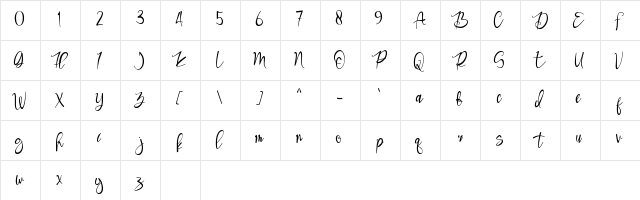
Goodday Regular
| Designer | AndreyFD |
Design Context for Goodday Typeface
Goodday is a composed and adaptable typeface that performs quietly and consistently across a wide range of design contexts.